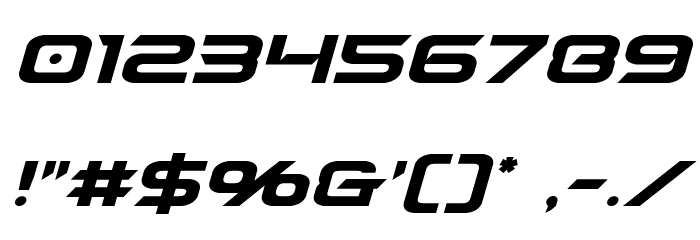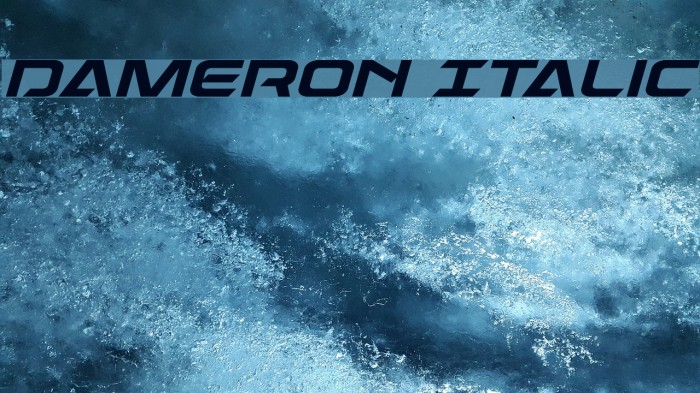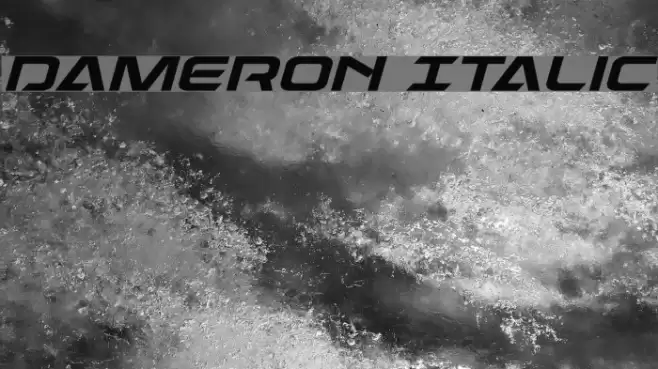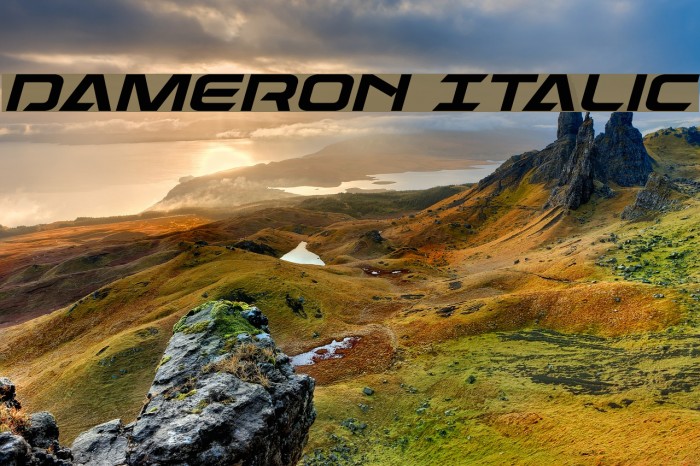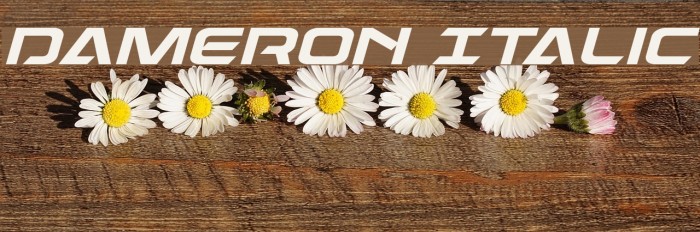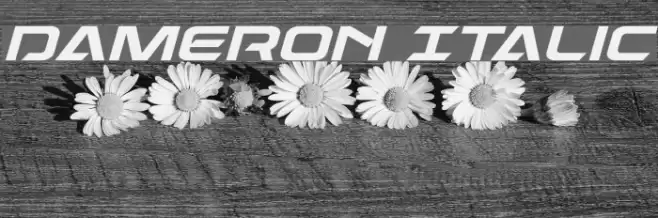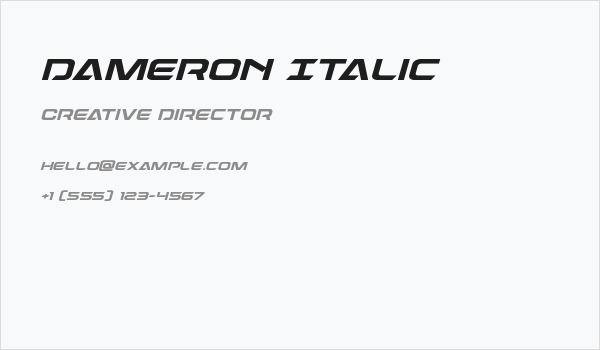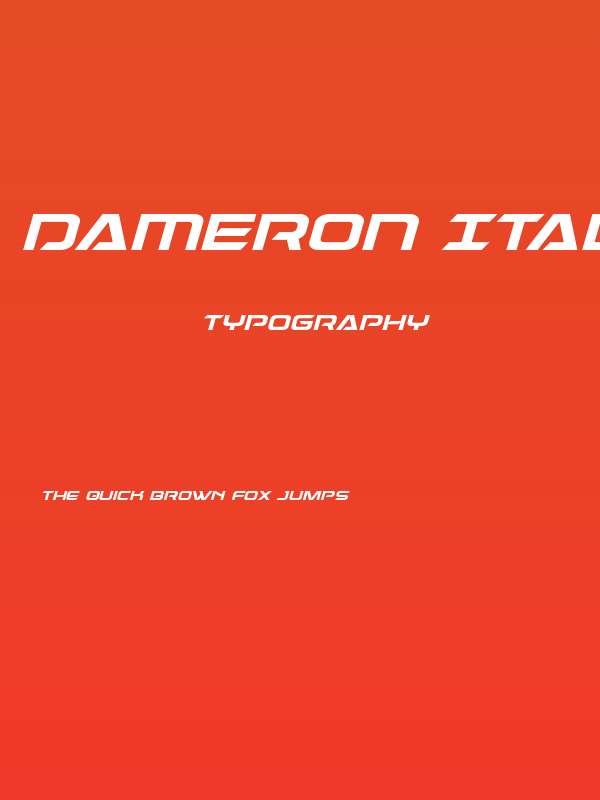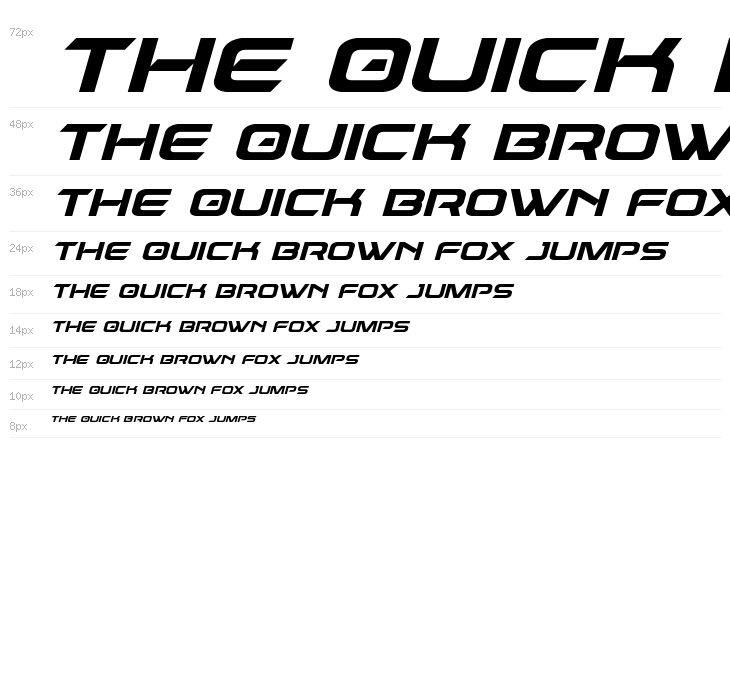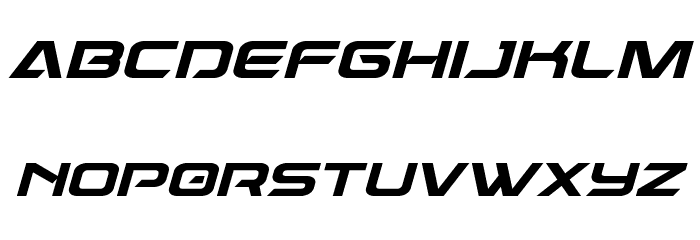
Dameron Italic Font
Dameron Italic Description
This font features a sleek, italicized design with a futuristic and dynamic appearance. The characters are slightly slanted, giving a sense of motion and speed. The strokes are consistent in thickness, providing a uniform look across all characters. The design is clean and modern, with a touch of edginess due to the angular cuts and sharp edges. The numbers and special characters maintain the same stylistic approach, ensuring cohesion throughout. This font is ideal for projects that require a contemporary and energetic feel.
| Use Case | Logos, Headlines, Branding |
| Proposed Projects | Ideal for technology branding, sports team logos, automotive advertisements, and modern web design. |